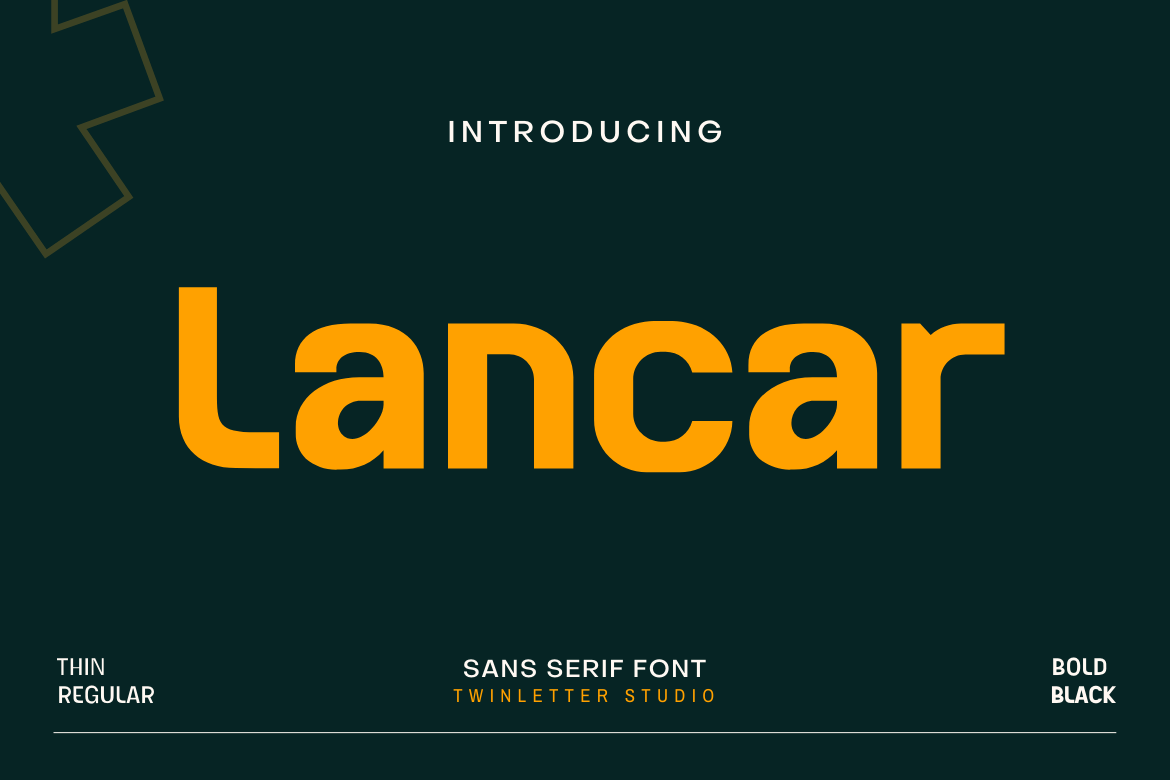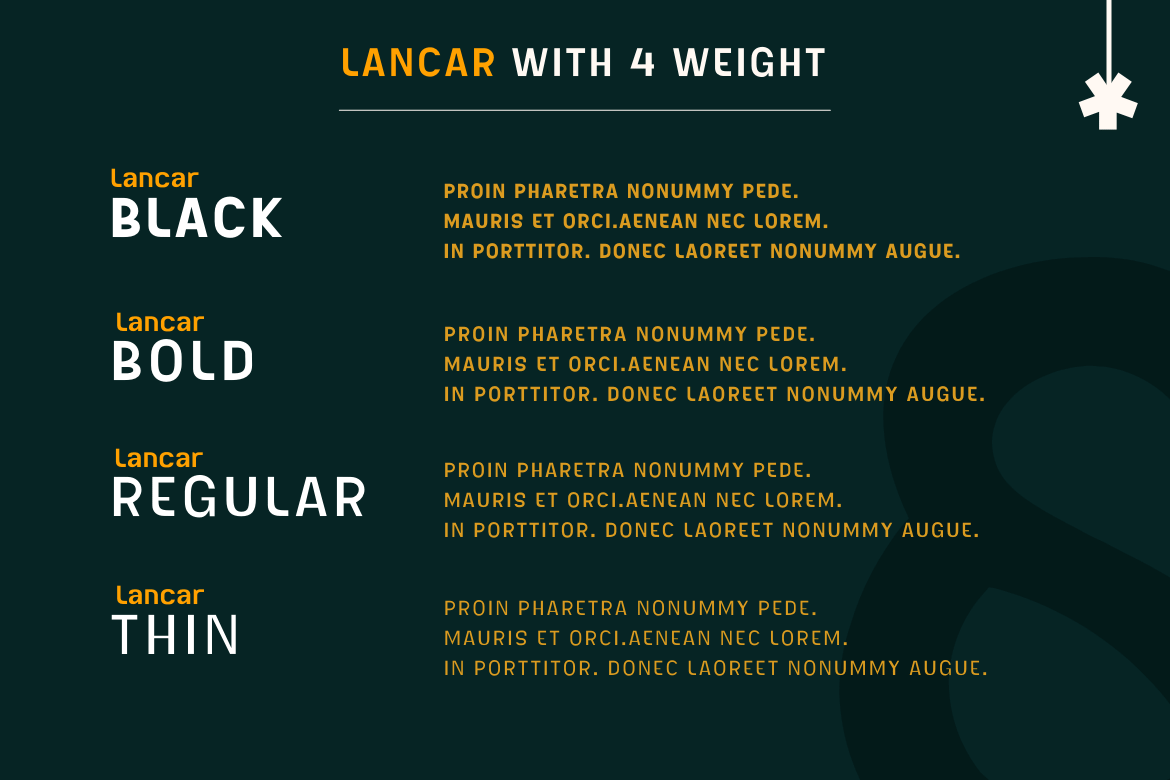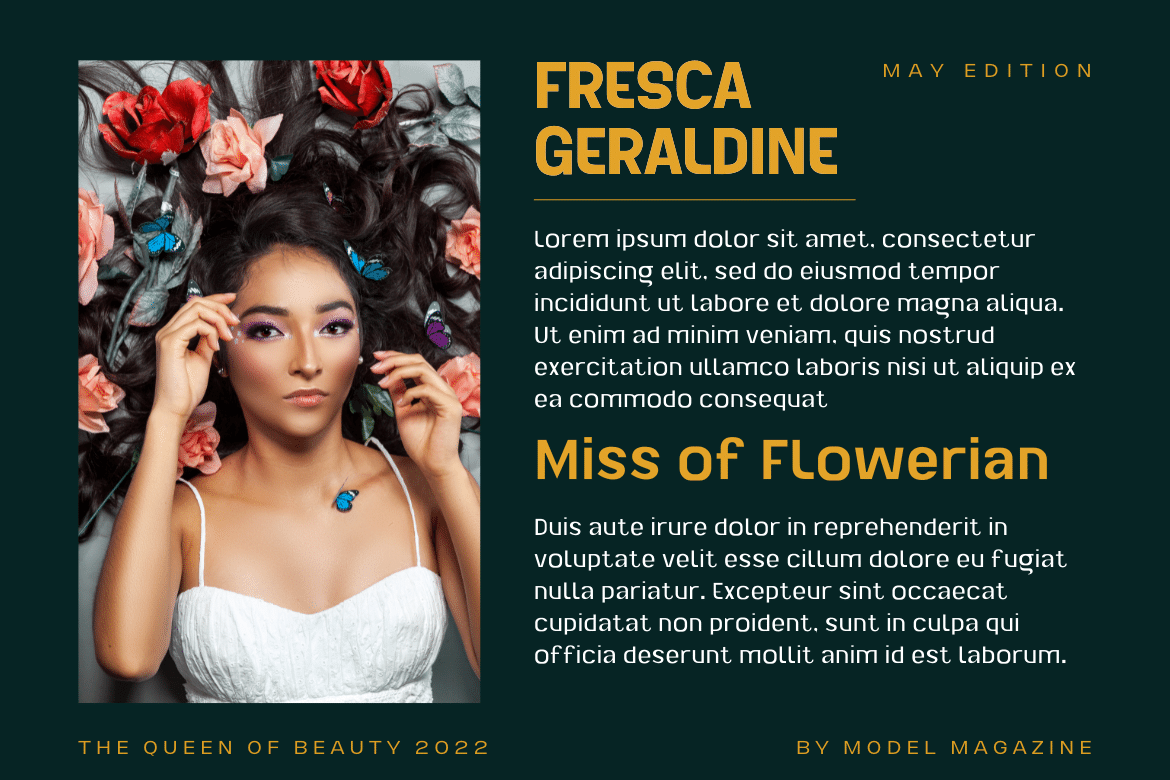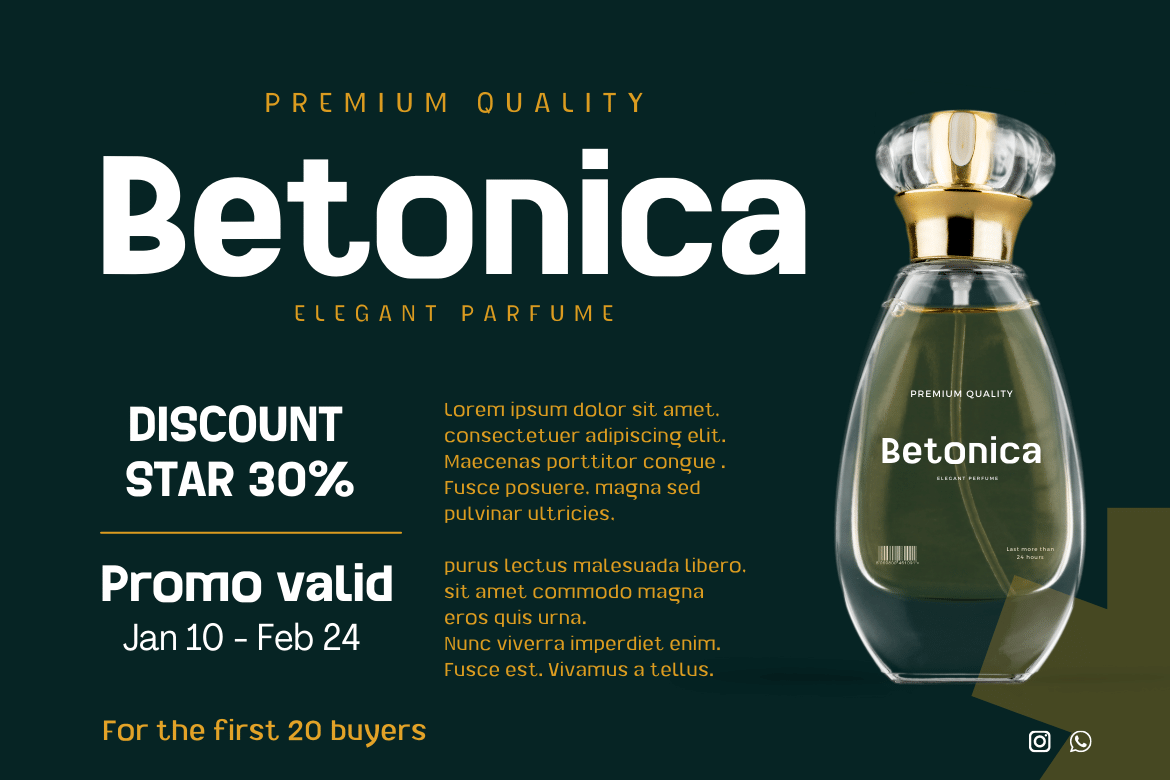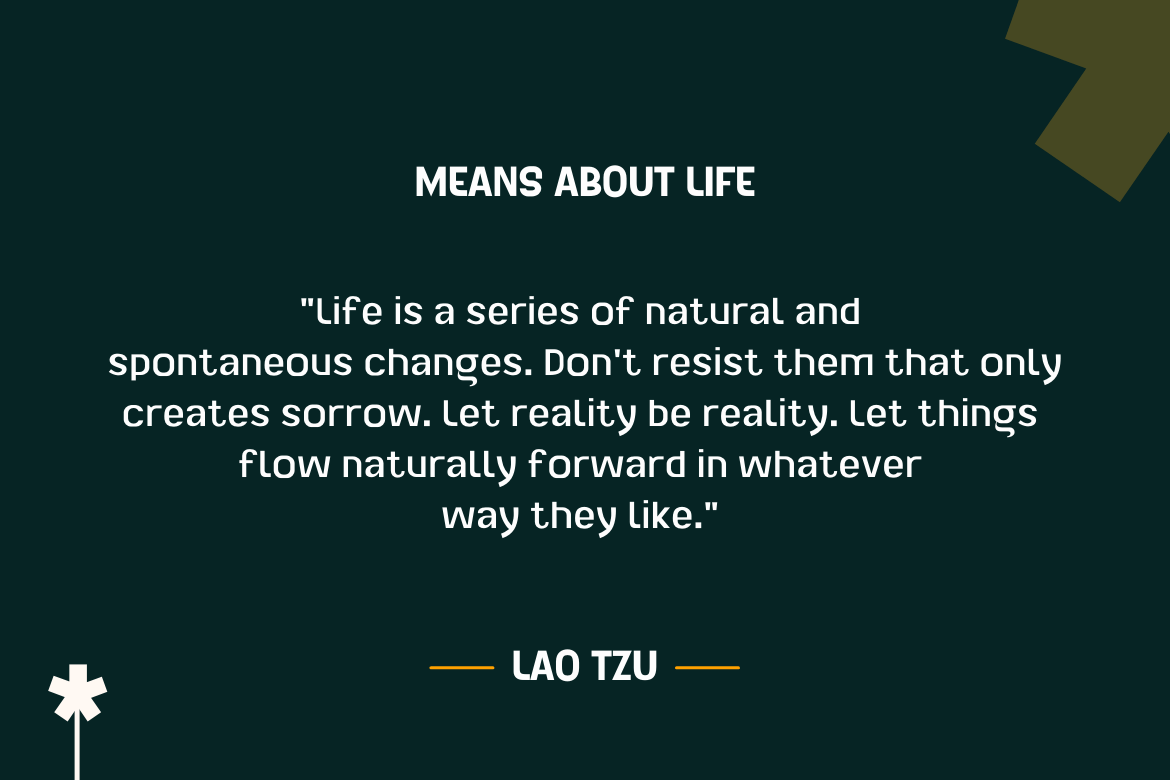
Lancar Font
Lancar Sans Serif Font
This is a sans serif font family with lovely curving forms ideal for headings and text. The curves provide your project an exquisite and harmonious design, great for making your project look gorgeous. This font also comes with four families to help you with your job. With this typeface, you can make your project stand out.
of course, your various design projects will be perfect and extraordinary if you use this font because this font is equipped with a font family, both for titles and subtitles and sentence text, start using our fonts for your extraordinary projects.